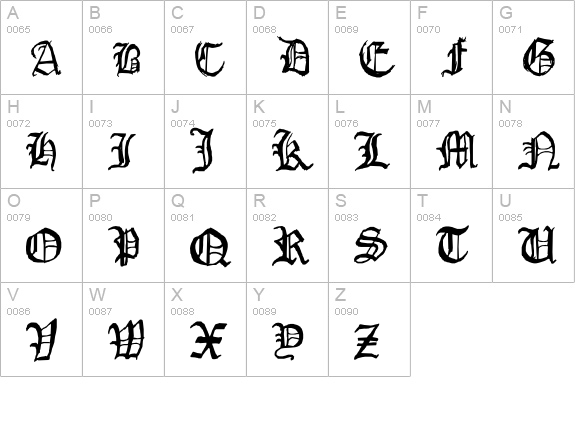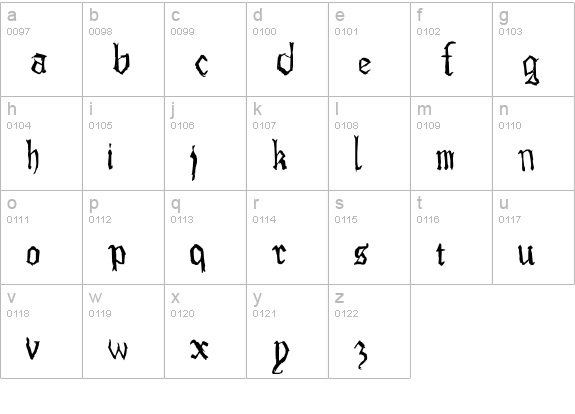
Drawn Old English Font Details
Introducing Drawn Old English, a captivating and meticulously crafted font that embodies the essence of the ancient and illustrious Old English style. With its intricate details and ornate letterforms, this font will transport you to a bygone era of elegance and sophistication. Every stroke in Drawn Old English has been carefully hand-drawn to capture the essence and authenticity of traditional calligraphy. Its timeless appeal and classic charm make it the perfect choice for adding a touch of nostalgia to your designs, whether it be for invitations, branding, or any creative project that calls for a touch of elegance. This font's versatility shines through in its ability to adapt to a wide range of design themes, from vintage aesthetics to modern reinterpretations. Its bold and distinctive letterforms exude confidence and command attention, making it ideal for headlines or titles that demand impact and authority. It effortlessly combines tradition with contemporary design, allowing for endless possibilities when it comes to expressing your creativity. But what sets Drawn Old English apart is its availability as a free download at FontsMarket.com. We believe in making exceptional fonts accessible to all, and this font is no exception. Whether you're a professional designer seeking a new addition to your font library or a hobbyist looking to elevate your personal projects, Drawn Old English is yours for the taking, without any cost or limitations. So why wait? Embrace the allure of the past and infuse your designs with the charm of Drawn Old English. Download this exceptional font today, completely free, at FontsMarket.com. Unleash your creativity and bring a touch of timeless elegance to your next project with Drawn Old English.